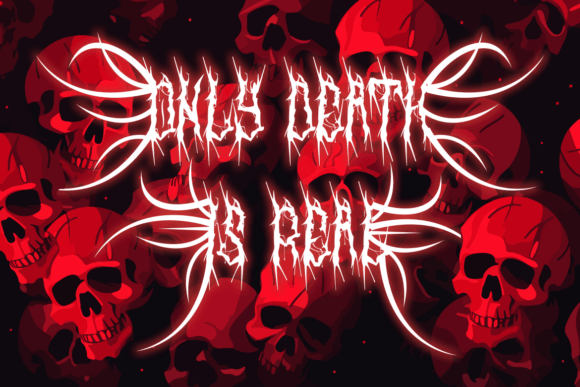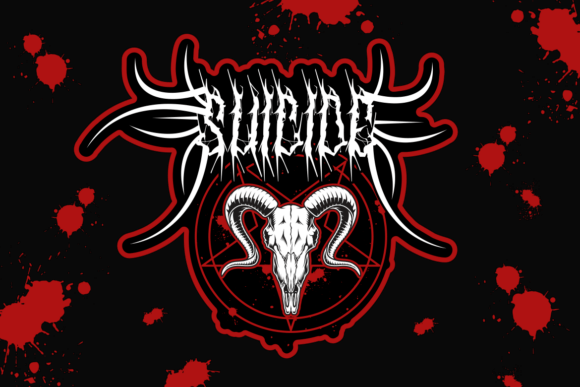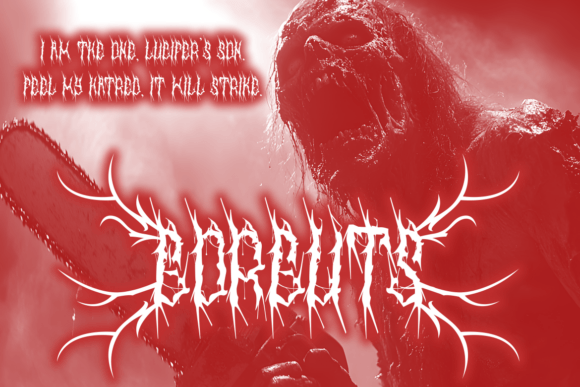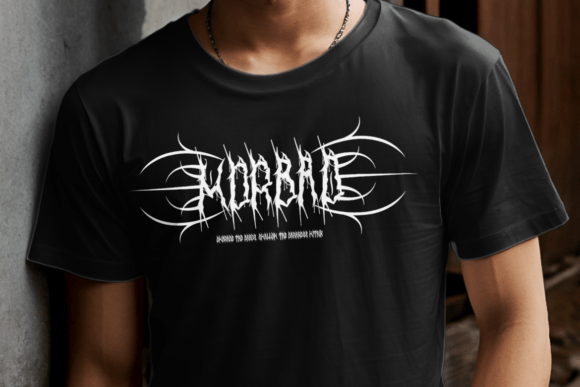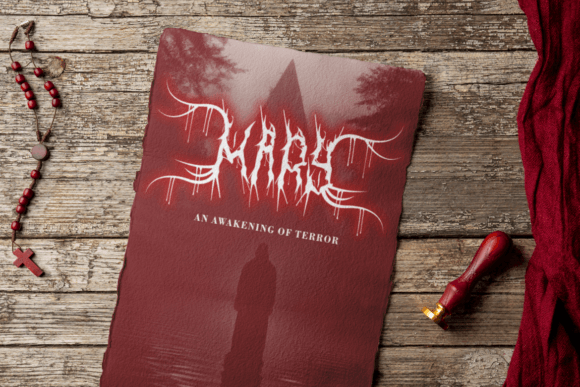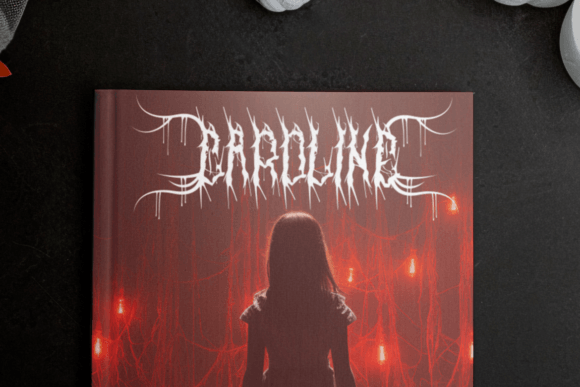
Introduction to Oblivor Font
Introducing Oblivor – Death Metal Font, a gritty, gothic typeface perfect for designs that demand a dark, rebellious edge.
This font captures the essence of death metal with its jagged, distressed strokes and haunting style, ideal for branding in the music industry, particularly for metal, rock, or alternative bands Oblivor brings an intense, high-impact look to logos, posters, and album covers, invoking the raw energy of underground music and the intensity of the black metal aesthetic.
Key Features of Oblivor Font
Why Choose Oblivor Font?
Oblivor Font offers exceptional quality and versatility, making it a valuable addition to your design toolkit. Whether you’re creating for personal projects or commercial use, Oblivor Font delivers professional results.